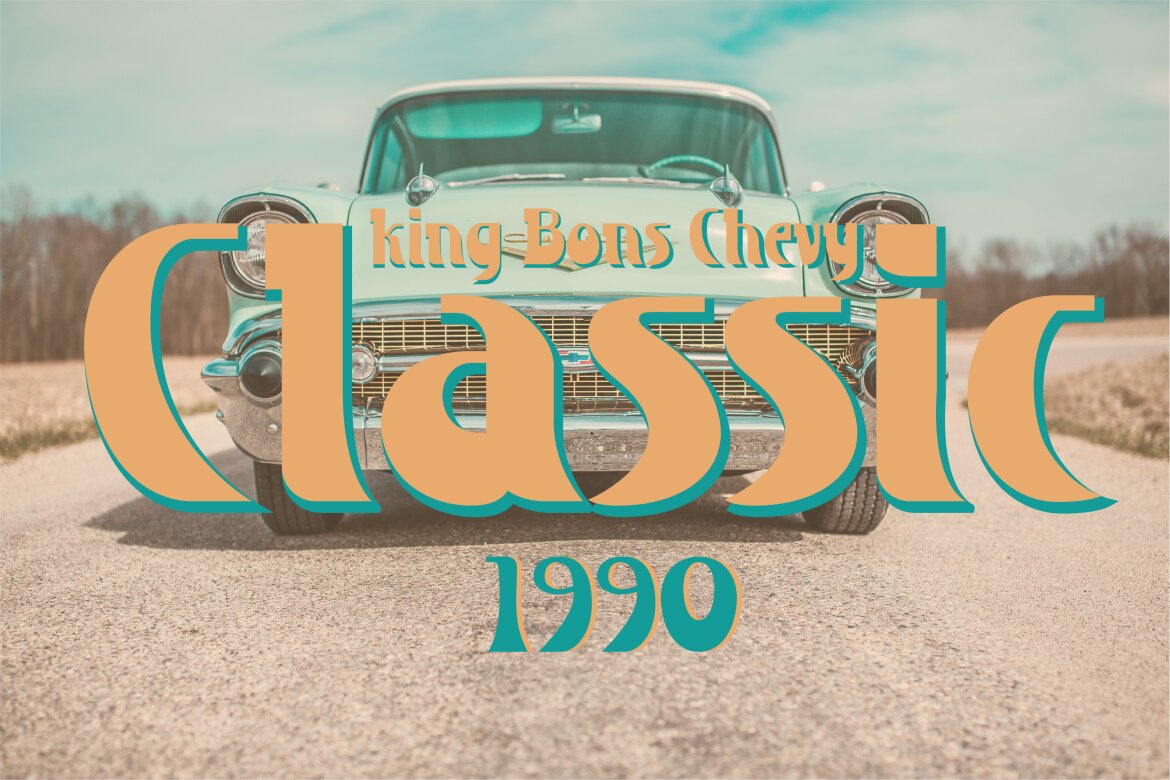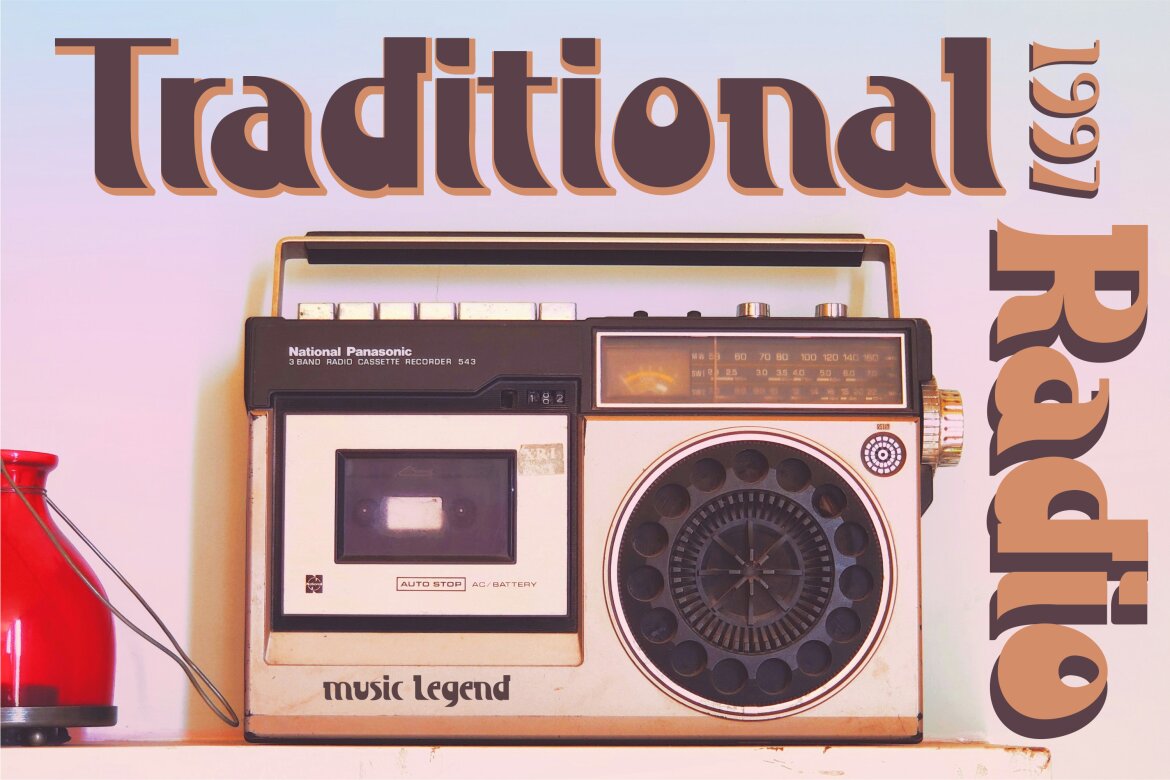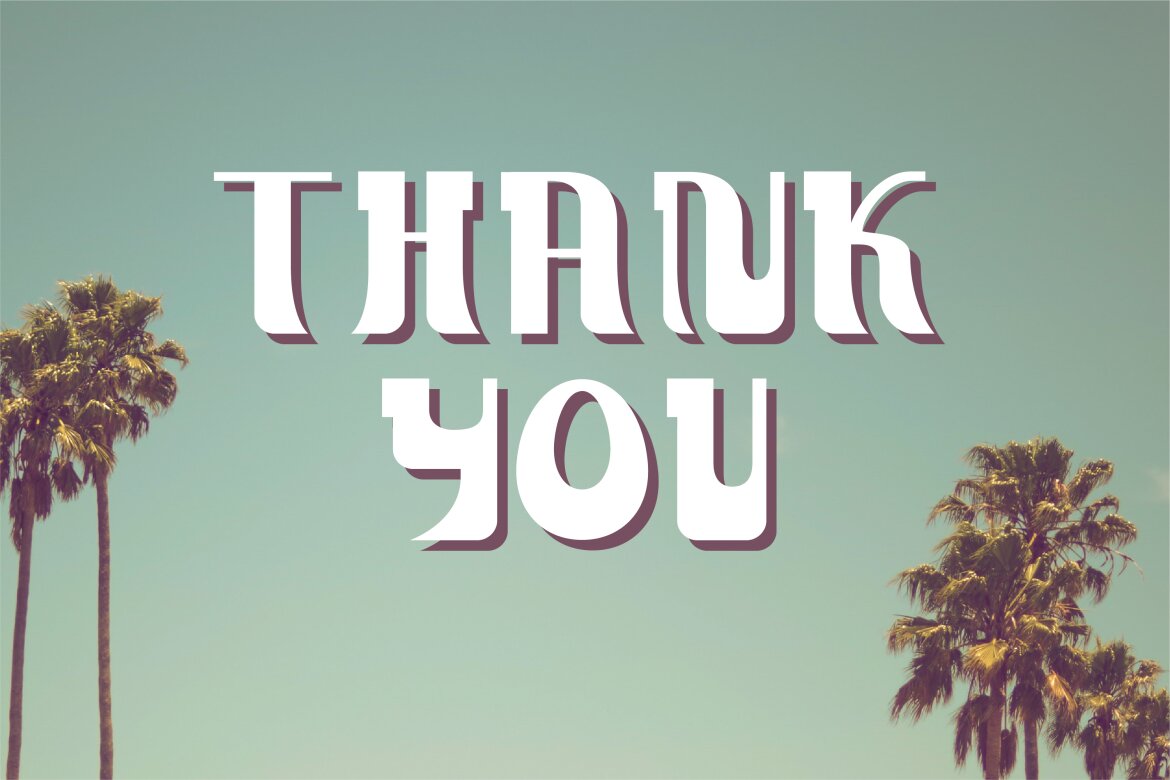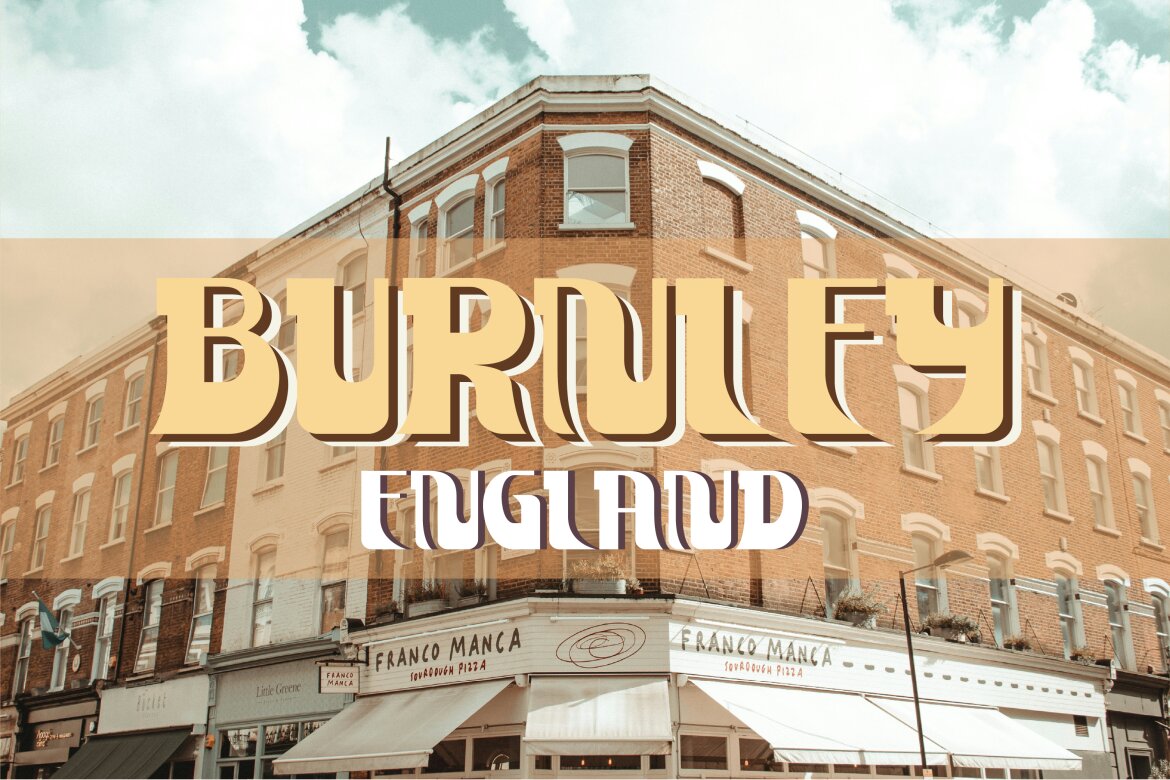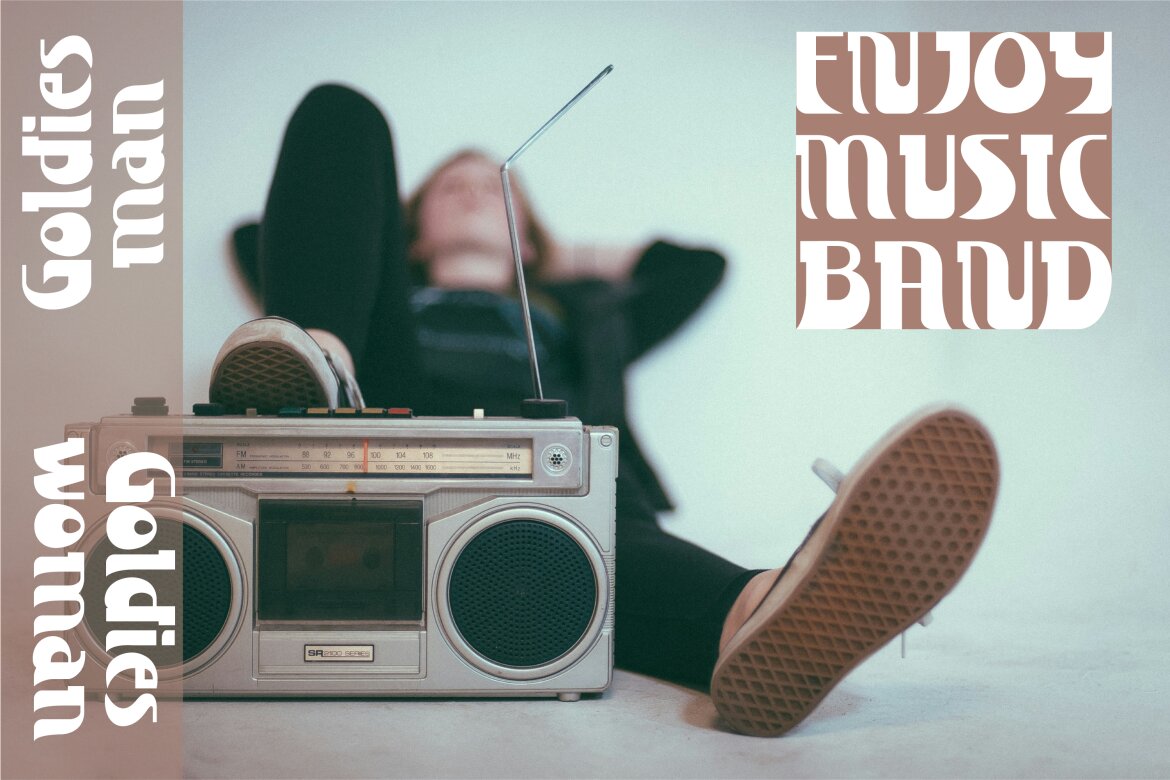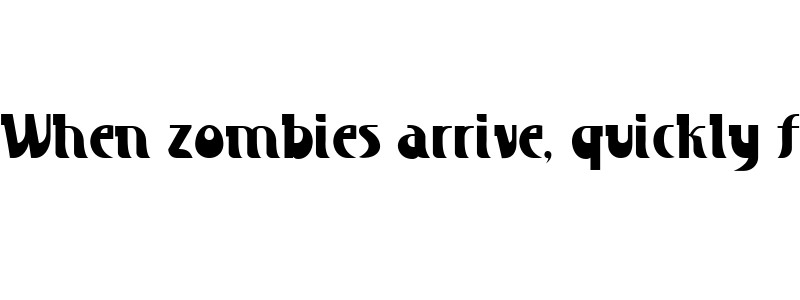
Ruteborn FREE Retro Font
Ruteborn Regular
Routeborn is a lively retro display font exuding nostalgic charm and adventure. With bold, rounded letterforms and playful curves, it evokes the spirit of vintage signage and road trip memories. Perfect for capturing attention on posters, banners, and designs seeking a retro-inspired aesthetic with a touch of whimsy.
Ruteborn would be perfect for photography, watermark, social media posts, quote, logos & branding, invitation, product designs, label, stationery, wedding designs, product packaging, special events or anything that need handwriting taste.